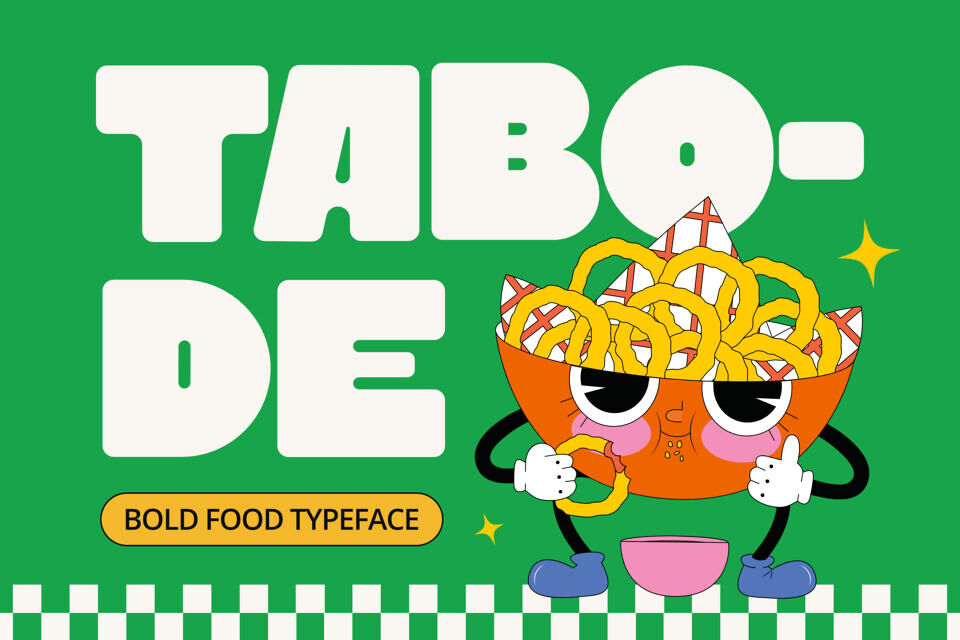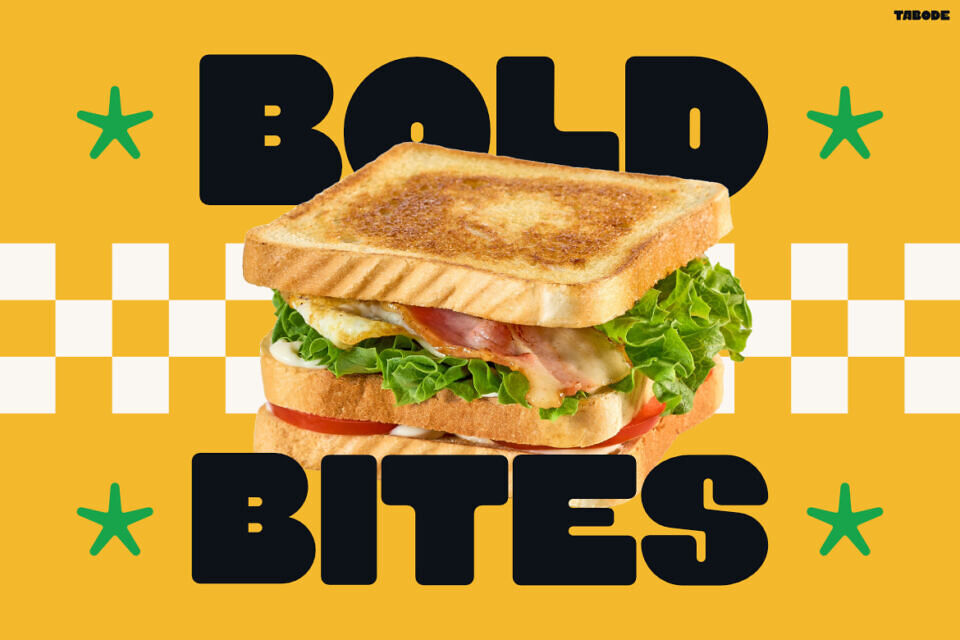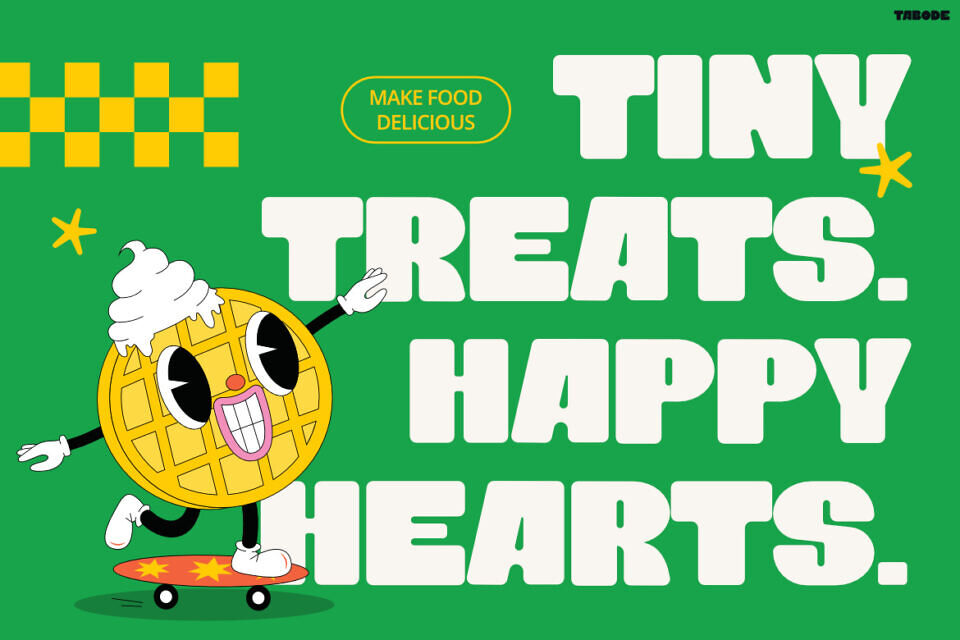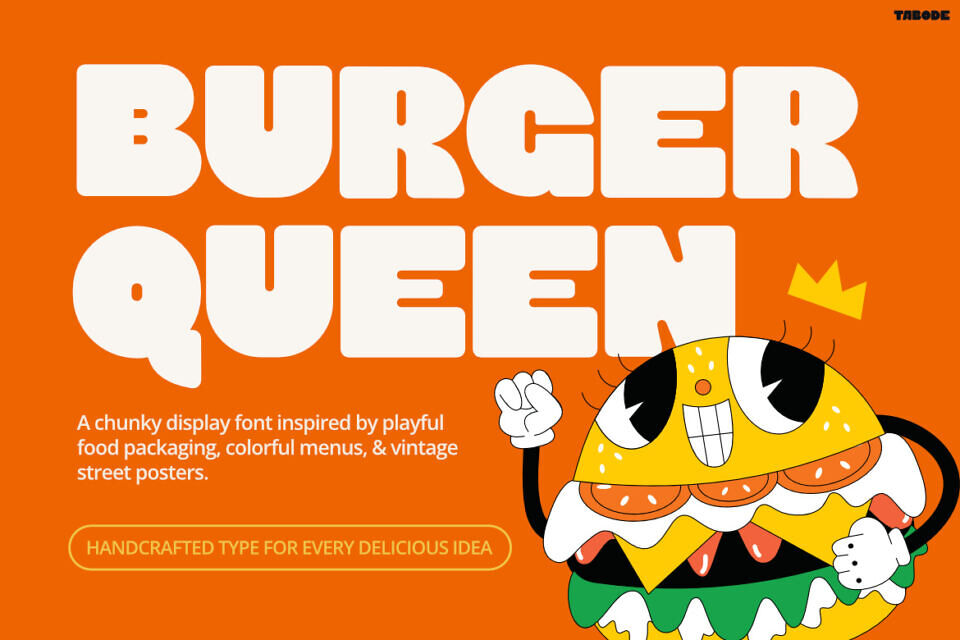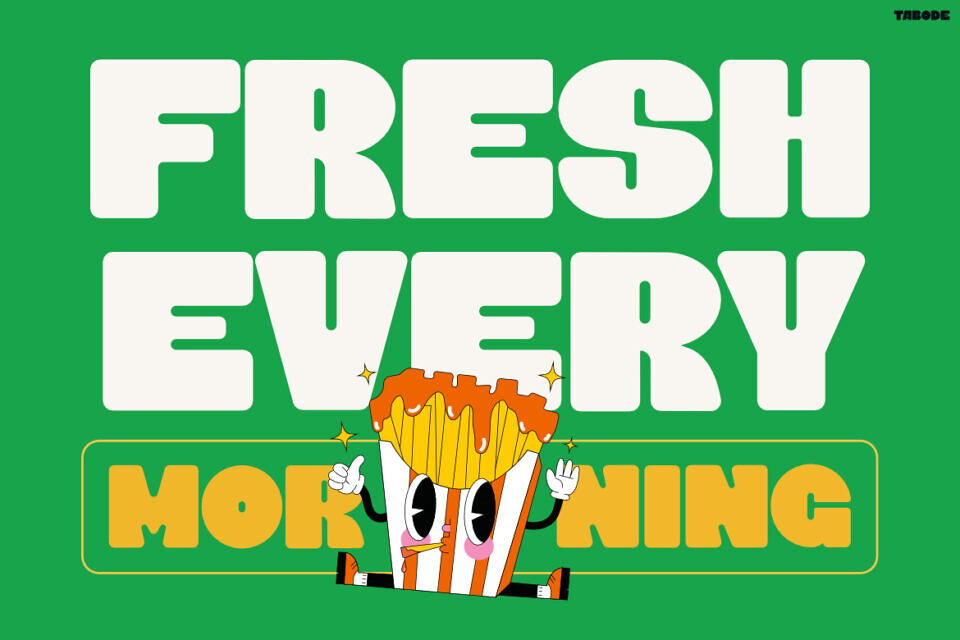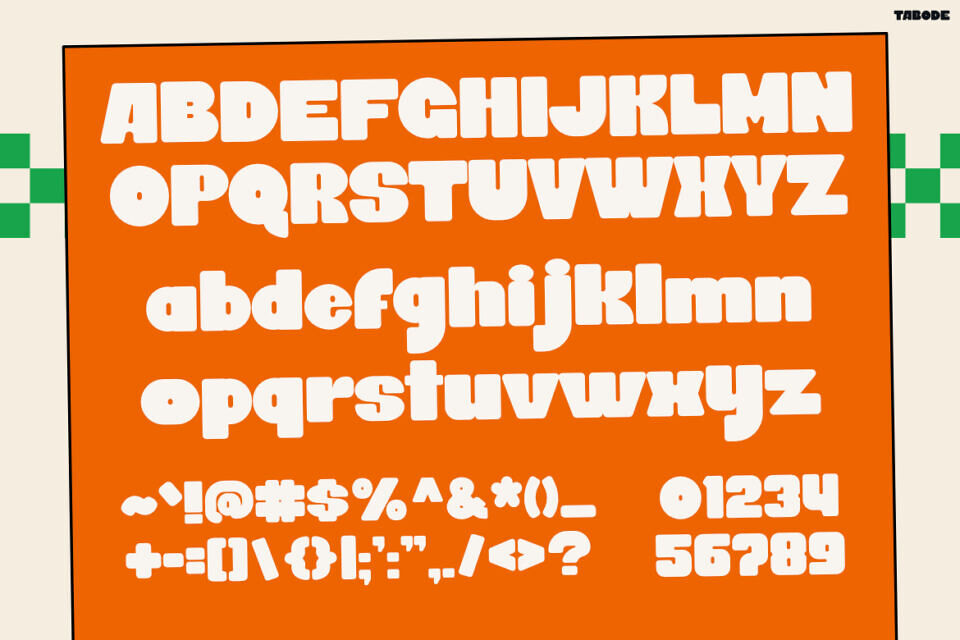
Tabode is a bold cartoon display font bursting with cheerful energy and irresistible charm. Instead of following ordinary typography, Tabode embraces oversized letterforms, rounded corners, and playful proportions that instantly spark joy.
The thick and friendly characters make every headline feel fun, tasty, and impossible to miss. Tabode delivers a vibrant personality that perfectly matches food brands, children’s products, and colorful promotions.